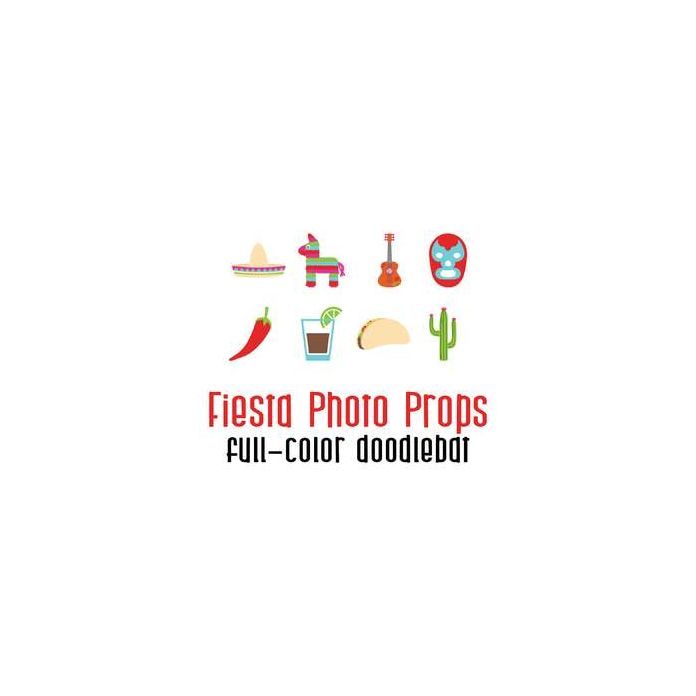
This adorable full color doodlebat font features fun fiesta style photo props. Perfect for cards, crafts, gifts, decor, scrap book pages, planner stickers, parties and more!